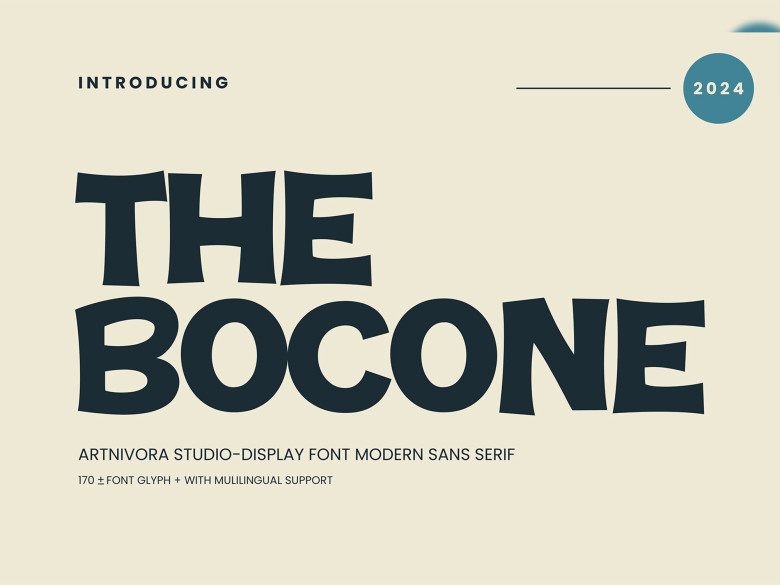
The Bocone Font
The Bocone can be best described as an impressive and dynamic sans serif font. No matter your subject matter, this font makes an excellent addition to your font library and enhances any work produced by any means possible. Ideal for logos, magazines brochures social media and more.
The Bocone Sans Serif Font